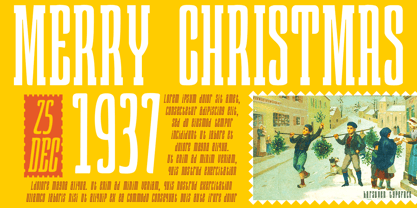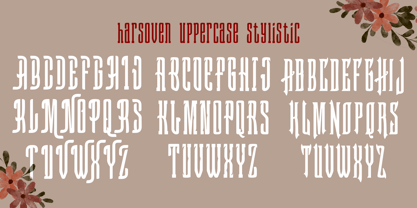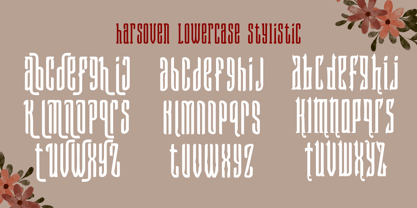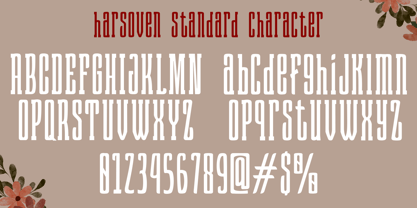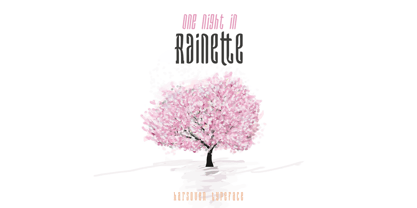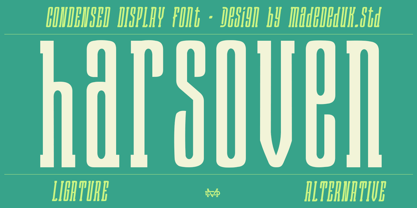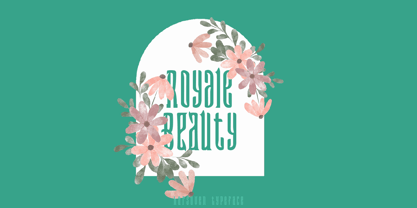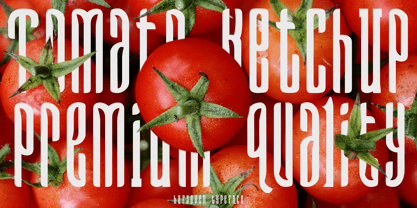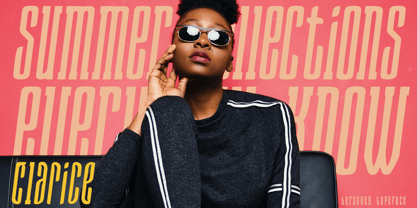
Harsoven
by madeDeduk
Harsoven is a striking condensed serif font distinguished by its sharp diagonal lines, ideal for creating bold typography that commands attention. This typeface comes in a single weight along with an italic variant, enhancing its versatility. Harsoven is perfect for logos, contemporary posters, album artwork, and lifestyle-driven branding. Its exceptional clarity makes it suitable for both digital and print materials, ensuring your designs resonate with creativity and style.